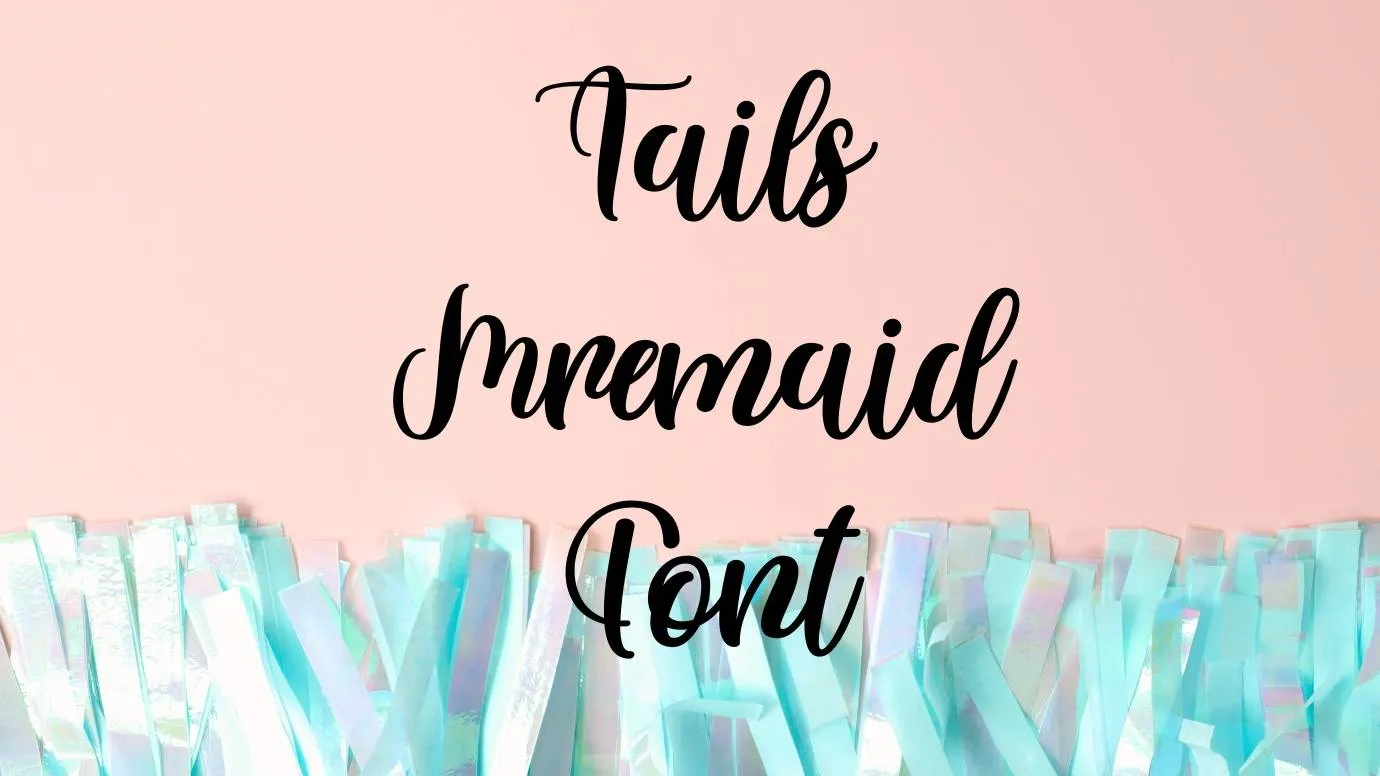
Tails Mermaid Font Family is a new calligraphy typeface that was designed by a famous Indonesian designer known as Mr. Vava Aryanto. The designer took the charge of designing this typeface for the first time in April 2020 and make cool characters with hand.
It comes in two hundred stylish characters. Each character has swashes that make your designs more beautiful and increase the beauty of designs. It is also perfect for creating brush and script designs by pairing this font with other typefaces like Braves Font.
| Name | Tails Mermaid Font |
| Type | Modern Calligraphy |
| Designer | Mr. Vava Aryanto |